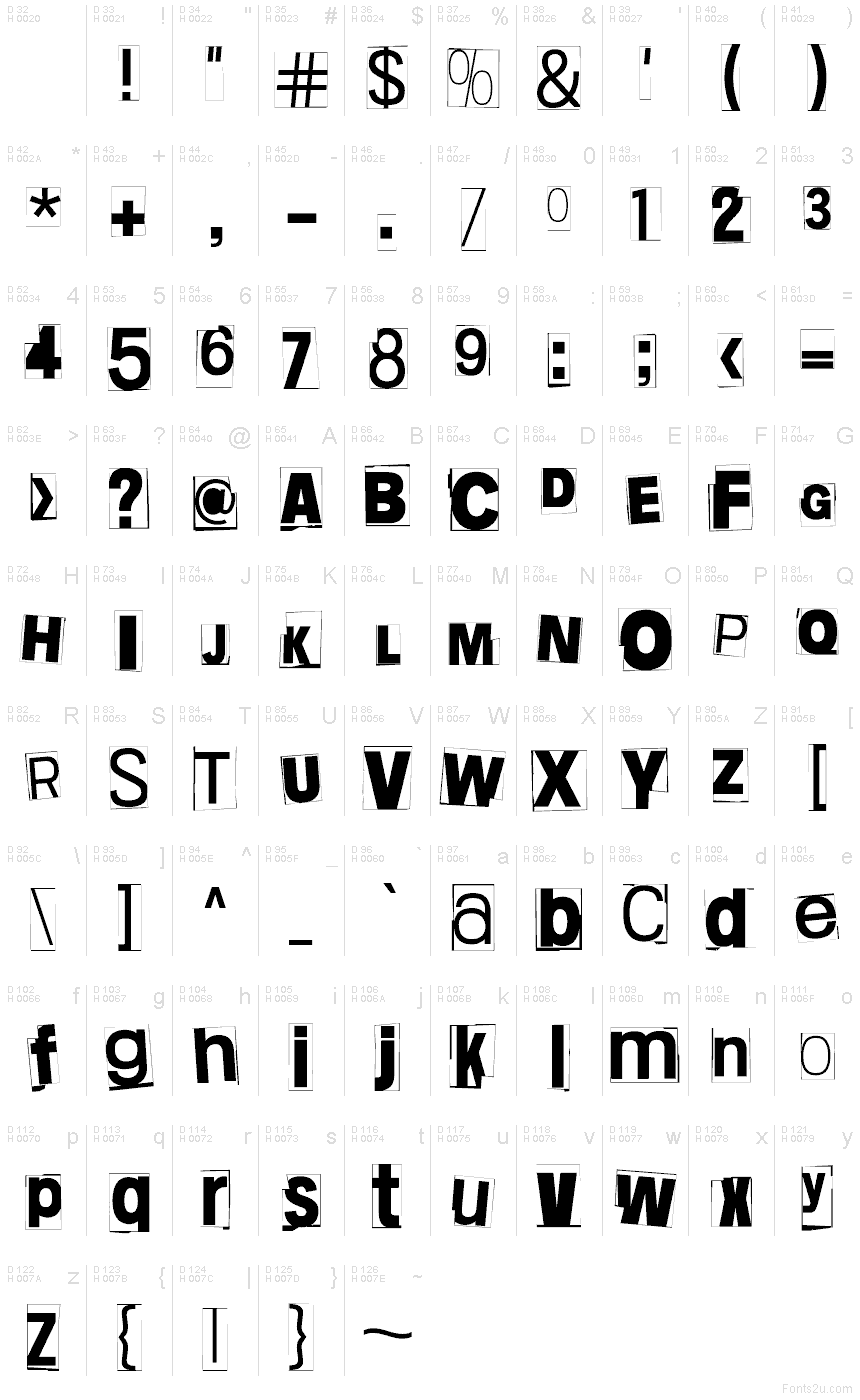
Nuyaghe. Just Nuyaghe. Four
Nuyaghe. Just Nuyaghe Four font designed by junkohanhero presents a distorted style with melancholic and modernist influences that take texts to a whole different level. This expressive and edgy display font reaches audiences with its grunge aesthetics and asymmetrical designs that require audiences’ attention for better focus.
With a new display, you need new uses, and the possibilities are endless thanks to this free font which can be used for movie posters designs, cover albums for artists or bands with dark themes who still enjoy the presence of solid corners, card games…